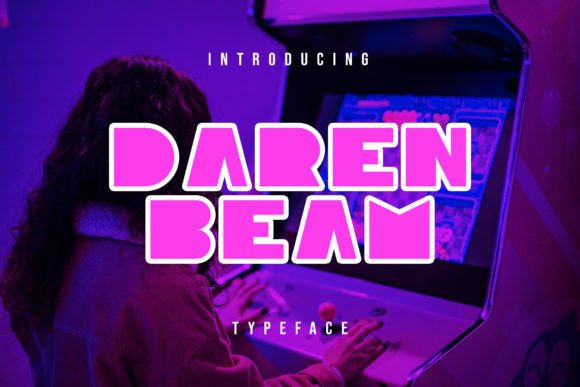
Introducing Daren Beam Font, a modern Display font family that dances a jig of creativity onto any design. Sculpted from the raw talent of zerologicstudio, Daren Beam is a treasure trove of sharpness and style, armed with an original touch that makes it absolutely irresistible. This remarkable font is the magician's wand you've been searching for, conjuring abstract masterpieces from the ordinary.
Unleash your design potential and discover a font that's more than just a series of characters - it's a muse, a spark for your imagination, and the key to unlocking your most awe-inspiring creations. Daren Beam isn't merely a collection of letters; it's a portal to a realm where your ideas take flight, soaring on the wings of elegance and finesse. Peer into the depths of this font, and you'll find an ocean of possibilities waiting to be explored.
Daren Beam is more than just a font. It's a kaleidoscope of captivating lines and curves, each stroke imbued with a sense of purpose, dancing together to form a symphony of visual delight. This display font has a personality that leaps off the screen, captivating your audience from the moment they lay eyes upon it. Its bold character demands attention, its sharp edges slicing through the visual clutter to deliver your message with undeniable impact.
With Daren Beam, you'll transform your design projects into breathtaking works of art. Picture your website's titles, dancing across the screen like fireflies, their presence impossible to ignore. Envision your posters, billboards, and magazine covers radiating an aura of sophistication and creativity. Your packaging will become a feast for the eyes, drawing customers like moths to a flame. The possibilities are as endless as your imagination, and Daren Beam is your brush, ready to paint your design dreams into reality.
Daren Beam isn't just a font; it's a revolution. It's a rebellion against monotony, a declaration of your unique style and vision. It's not just a tool; it's a statement piece, an extension of your own creativity. So, seize this chance and make it a timeless part of your design arsenal. Welcome Daren Beam into your creative realm, and watch as it transforms your works into masterpieces, enchanting your audience and leaving them begging for more.